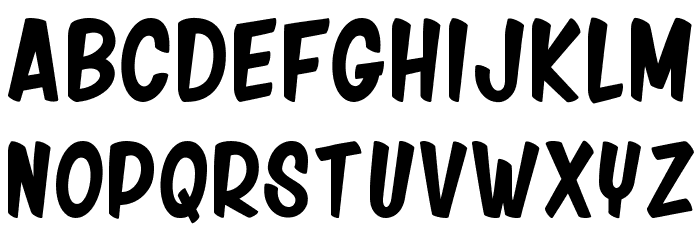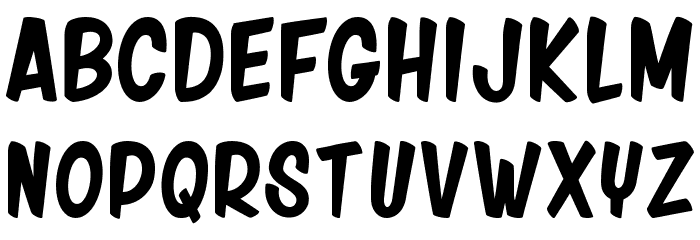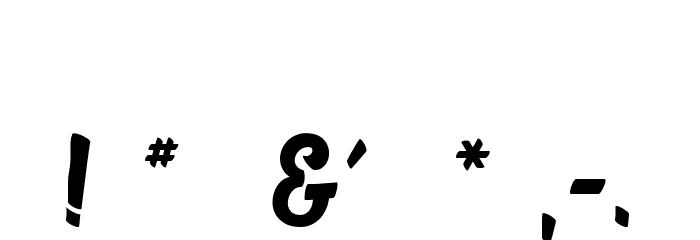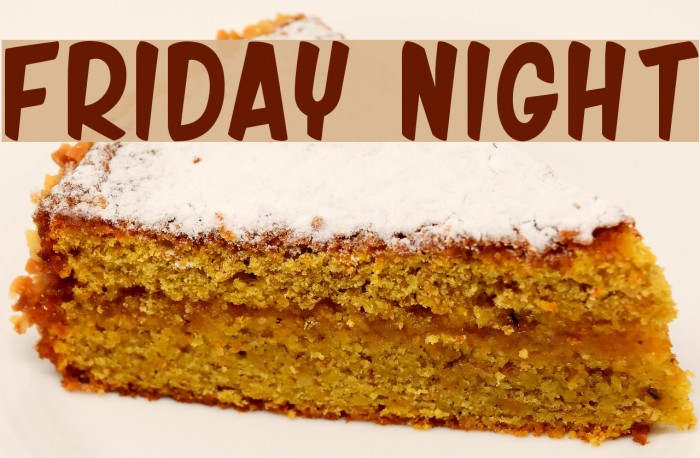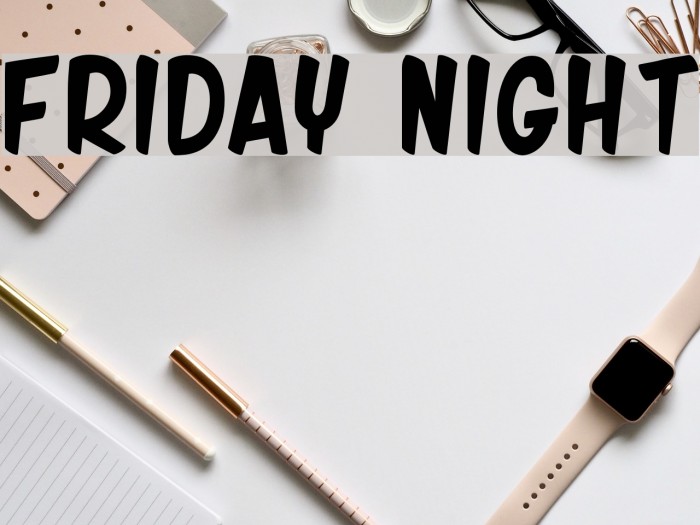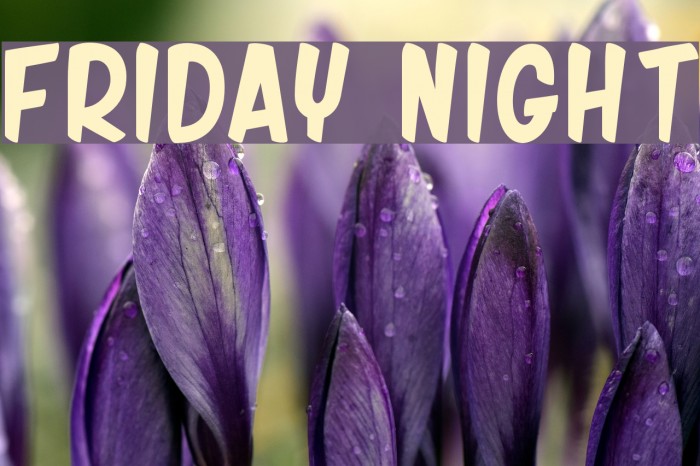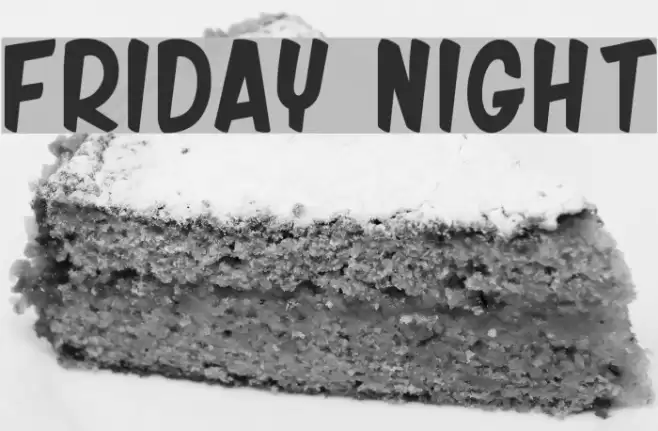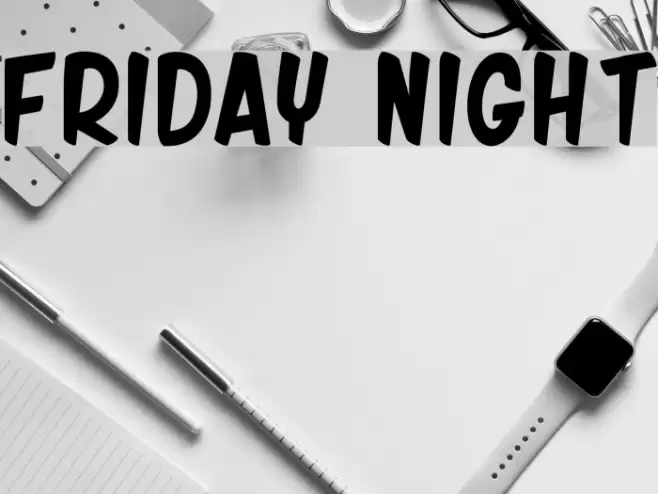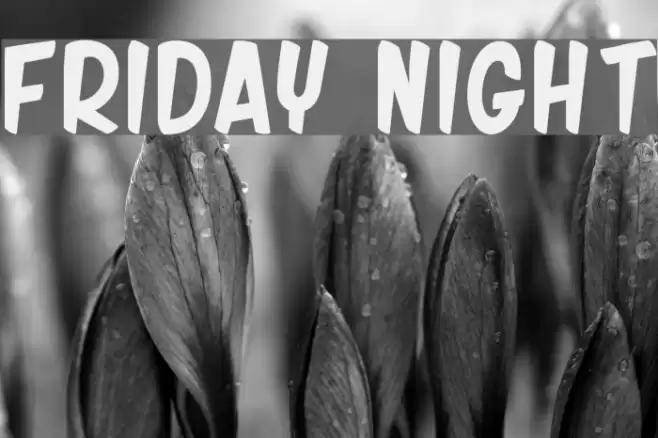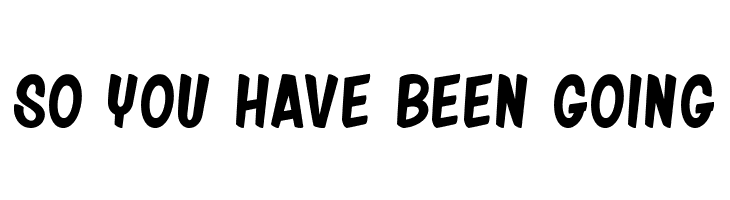
friday night Font
This font features a bold and playful style with a hand-drawn appearance. The characters are slightly slanted, giving a dynamic and energetic feel. The strokes are thick and consistent, providing a strong visual impact. The uppercase and lowercase letters maintain a uniform width, contributing to a cohesive look. The special characters, such as the exclamation mark and ampersand, are creatively designed to match the overall playful theme. This font is ideal for projects that require a fun and informal touch.
A bold, playful font with a hand-drawn, energetic style.
- Proposed Projects: Perfect for children's books, party invitations, posters, and playful branding.
- Overall Style: Playful